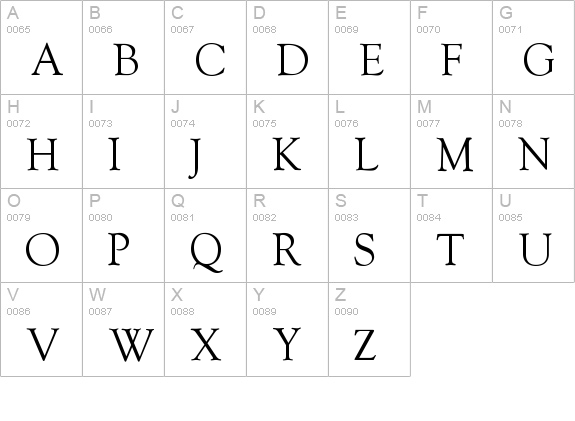
GoudyOldStyle Font Details
Goudy Old Style is a classic and elegant serif font that exudes a sense of timeless sophistication. With its graceful lines and traditional design, this typeface is perfect for adding a touch of refinement to any project. Its versatility makes it suitable for a wide range of applications, from branding and advertising to editorial design and invitations. What makes Goudy Old Style even more appealing is the fact that it is available for free download at FontsMarket.com. Now you can enhance your designs with this beautiful font without any cost, allowing you to elevate your work without breaking the bank. Download Goudy Old Style today and discover the endless possibilities it offers for your creative endeavors.